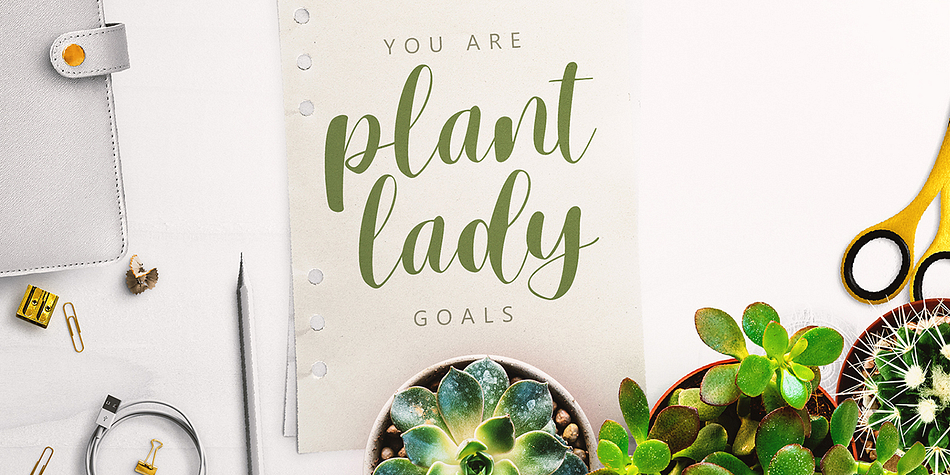
Madinah
Madinah is a multiple classification font family. This typeface has three styles and was published by Genesislab.
With pleasingly updated calligraphy hand variations that have been given an additional hand-written combination of brush and ink. This font will look beautiful on all designs, Wedding design, branding materials, blog titles, quotes and invitations, business cards.